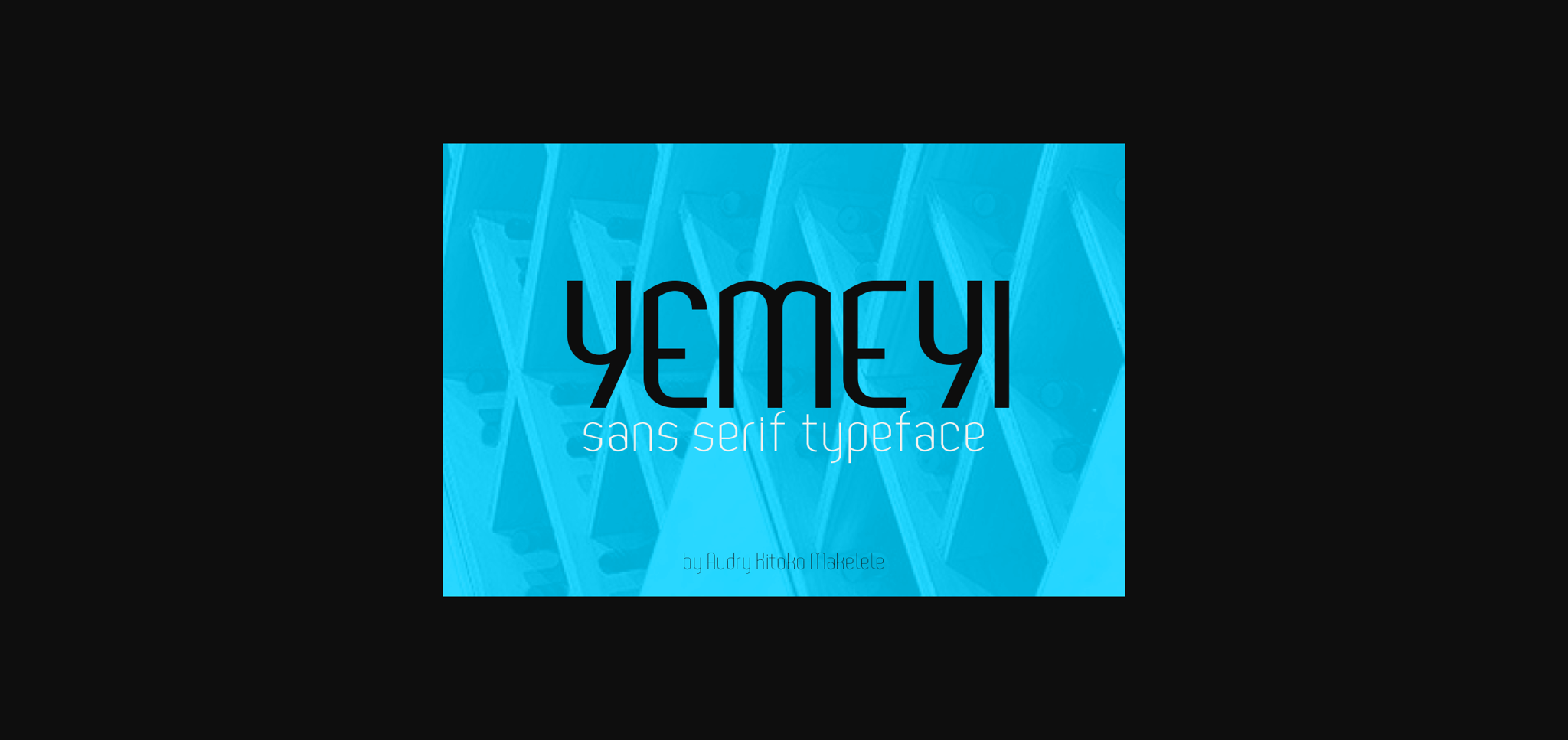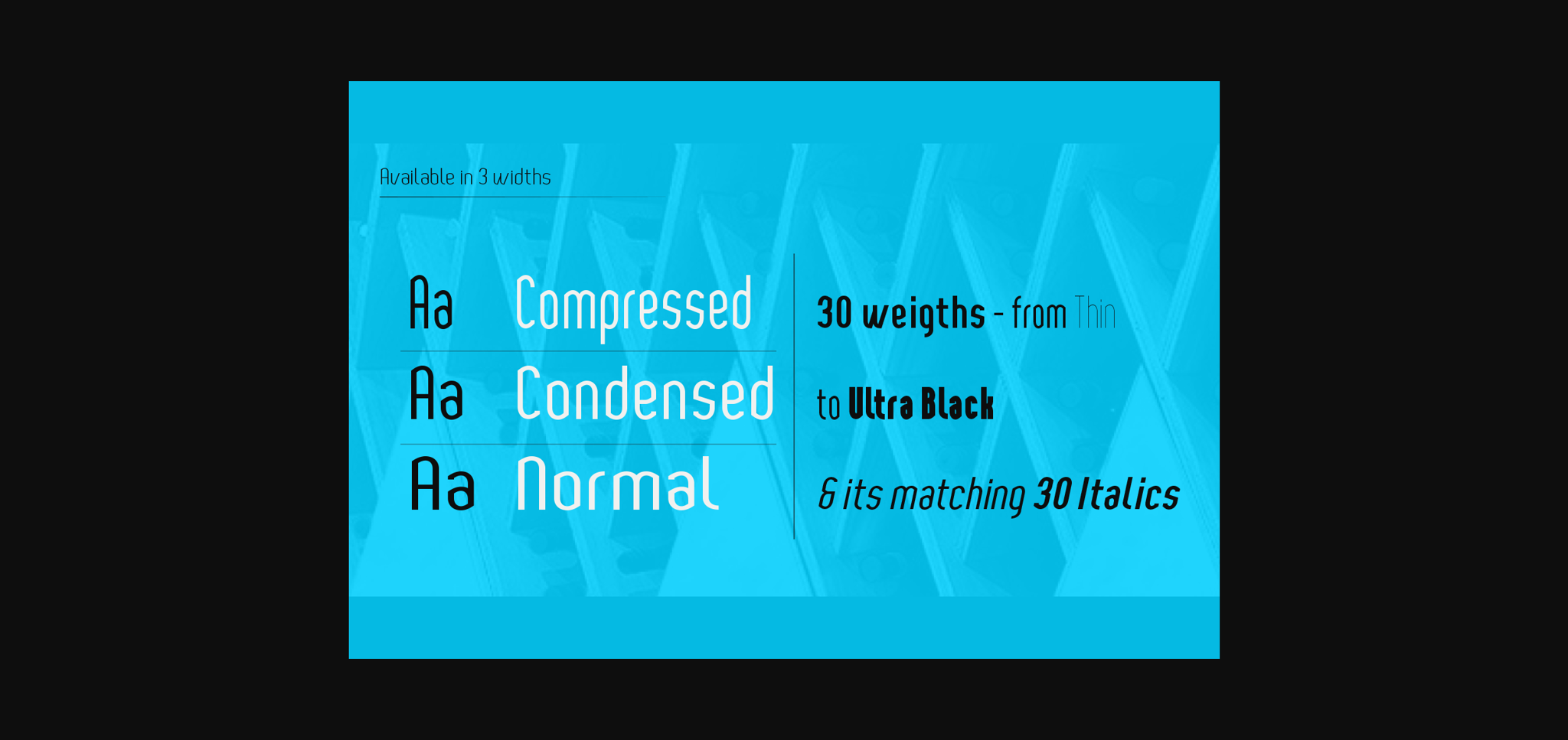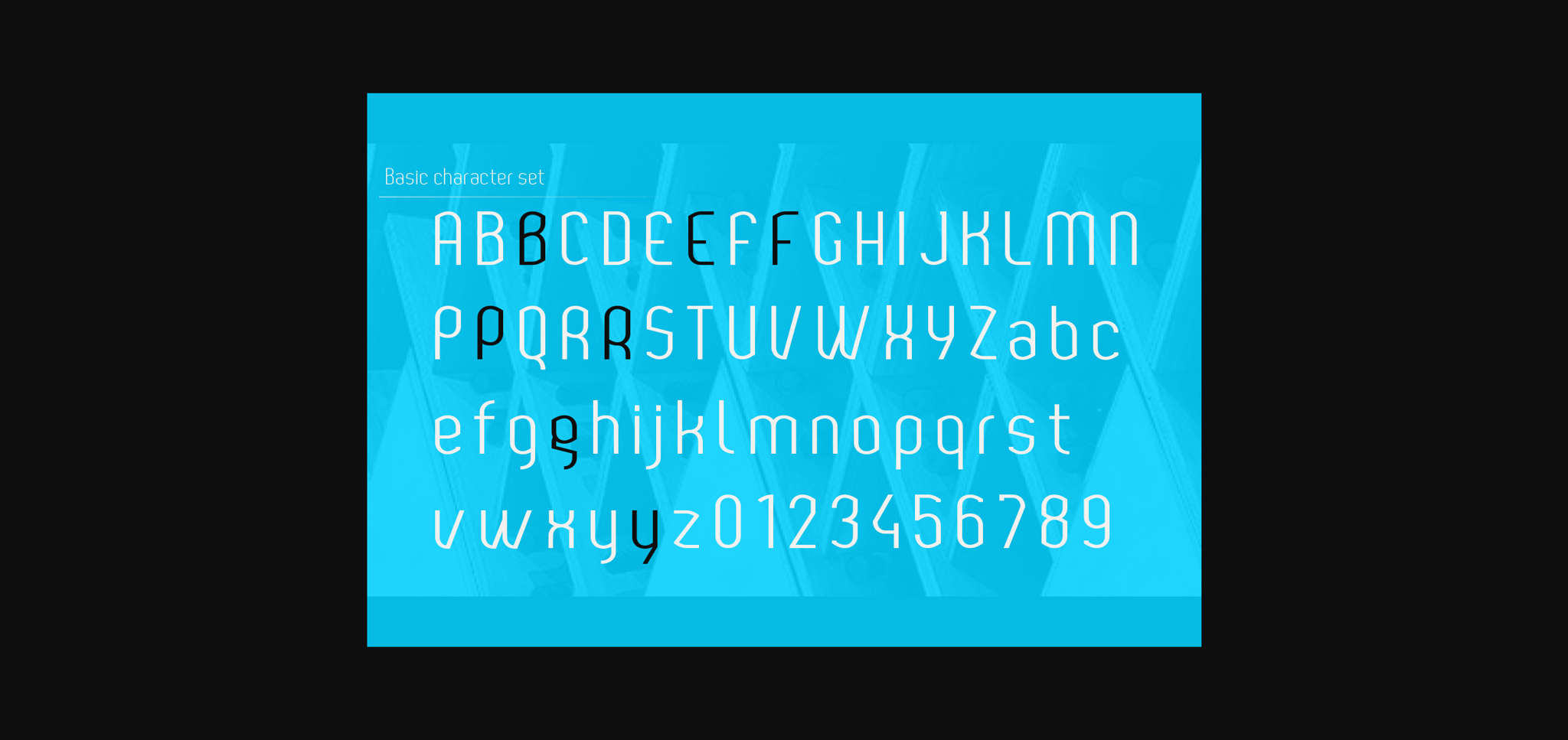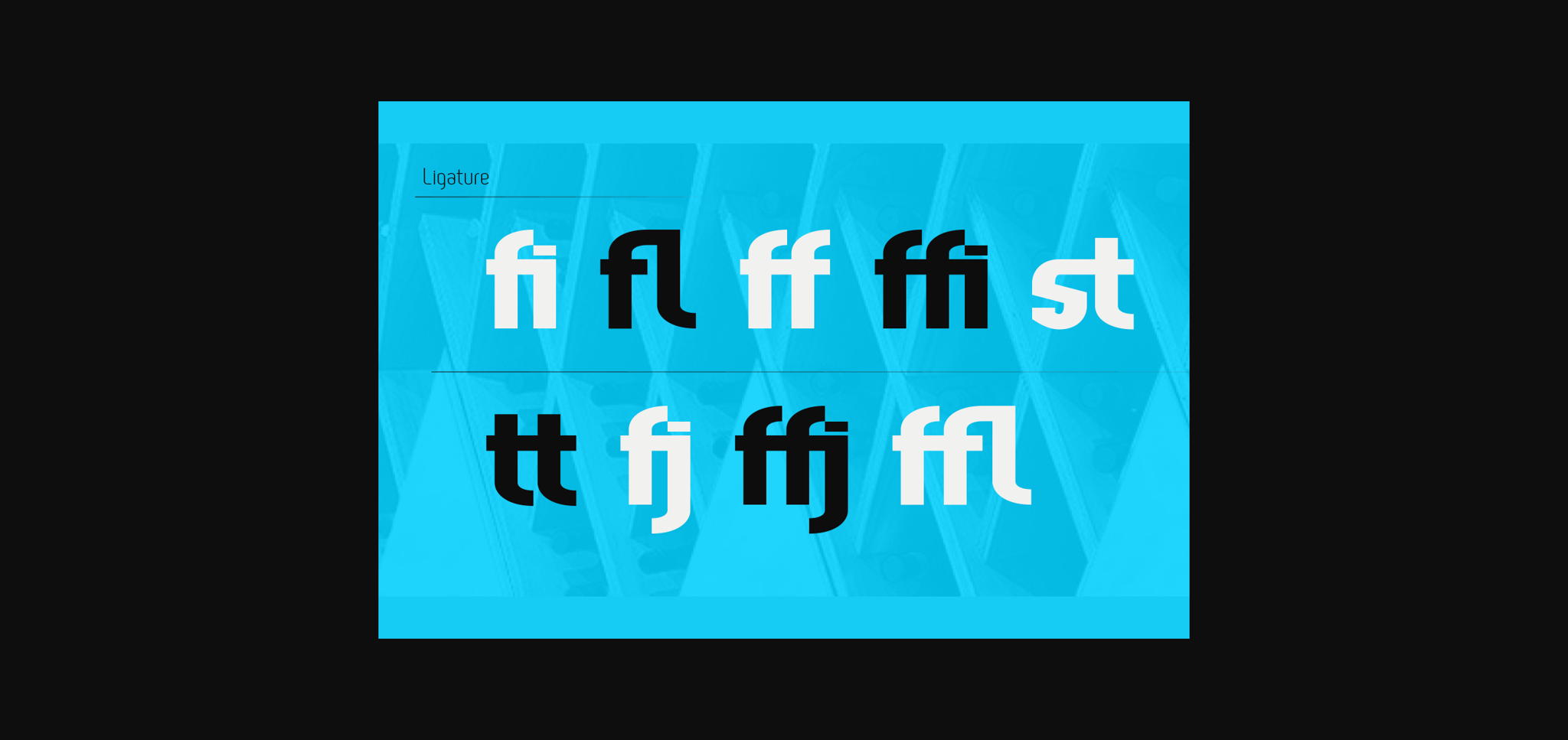
Yemeyi Font
About Yemeyi Font
Yemeyi is a simple and neat lettered sans serif font. Add this font to your creative ideas and notice how it will make them stand out!